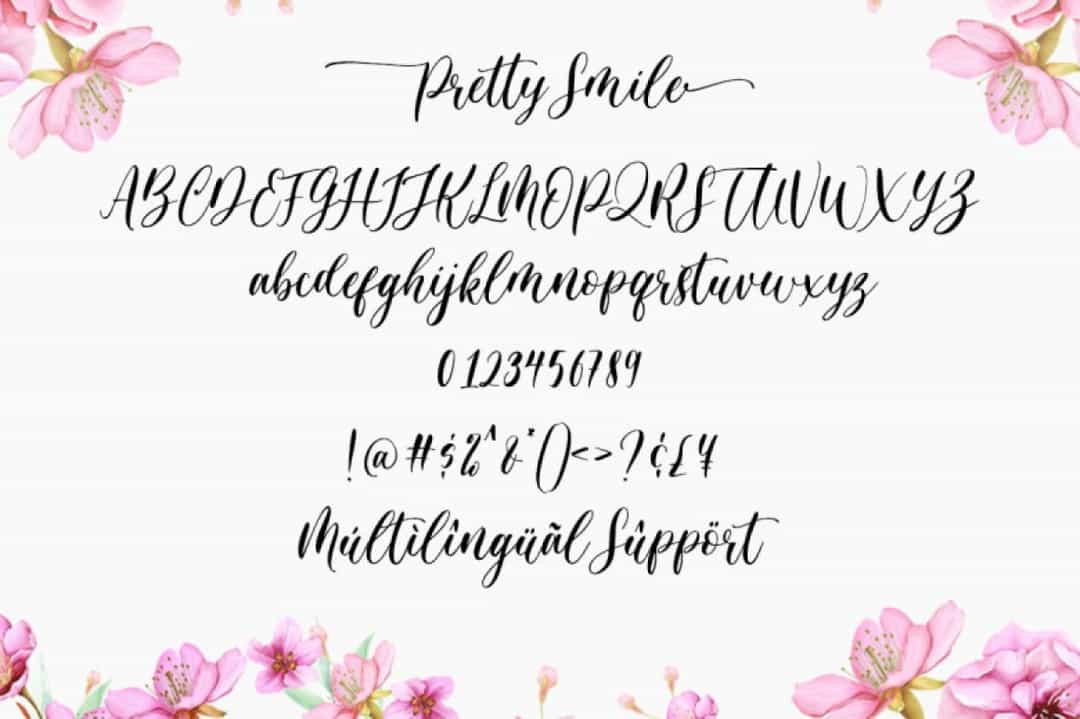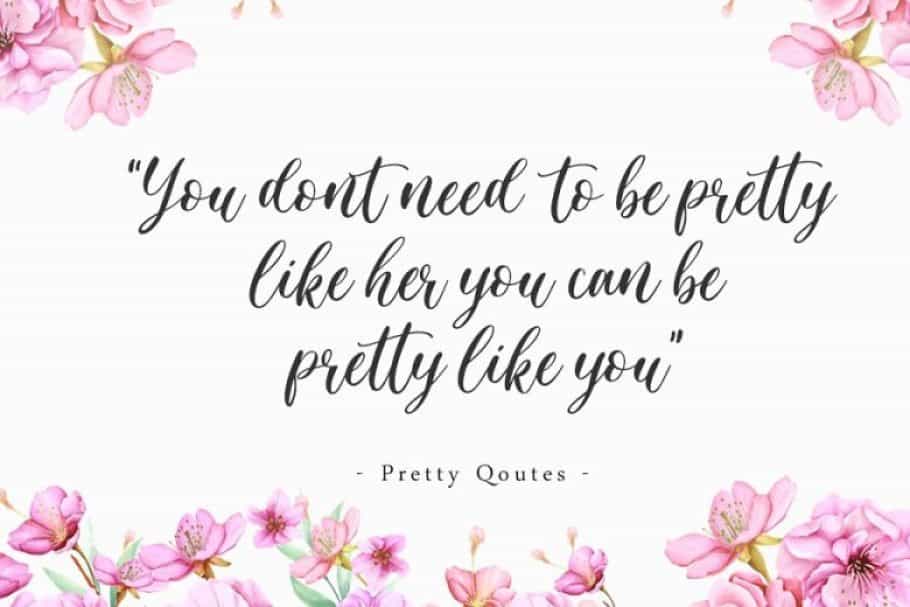
Pretty Smile is an attractive font that has been nurtured to mainly capture the essence of branding invites, stationery and social media posts. Also, due to its beauty, it is suitable for ads, product packaging and labeling, photography and events, among others.